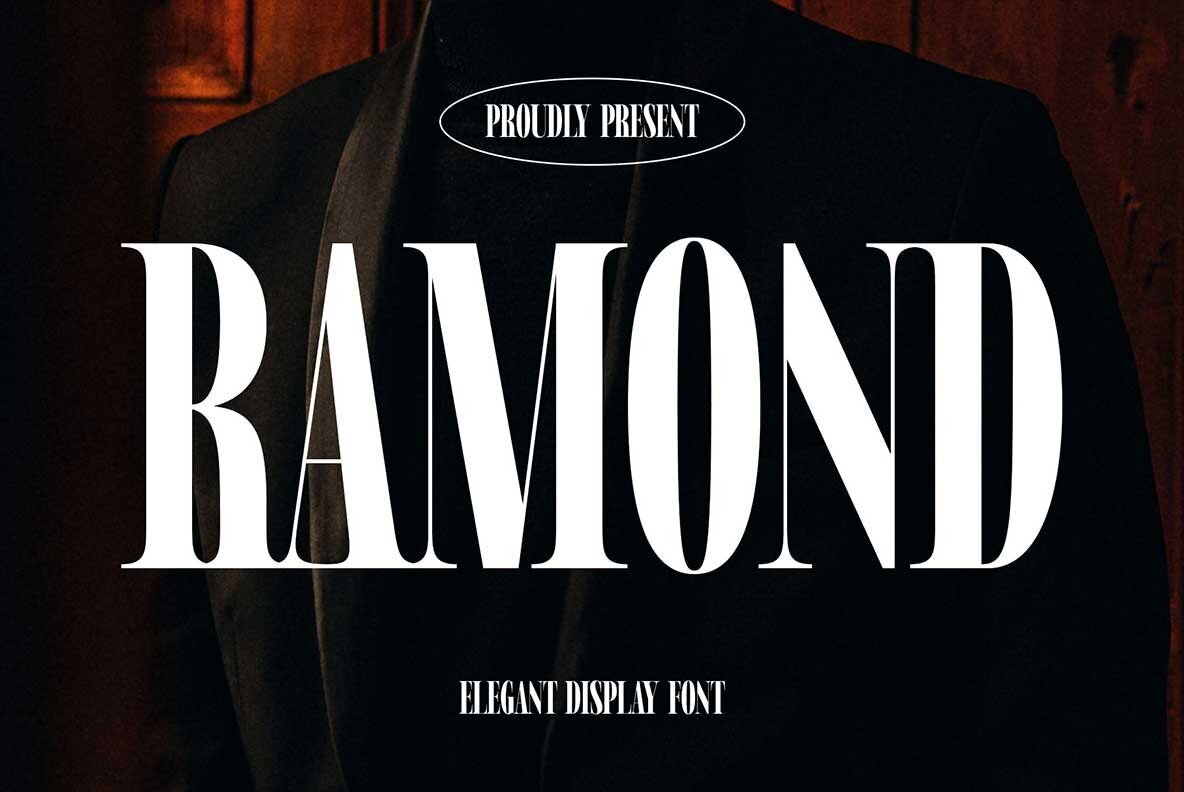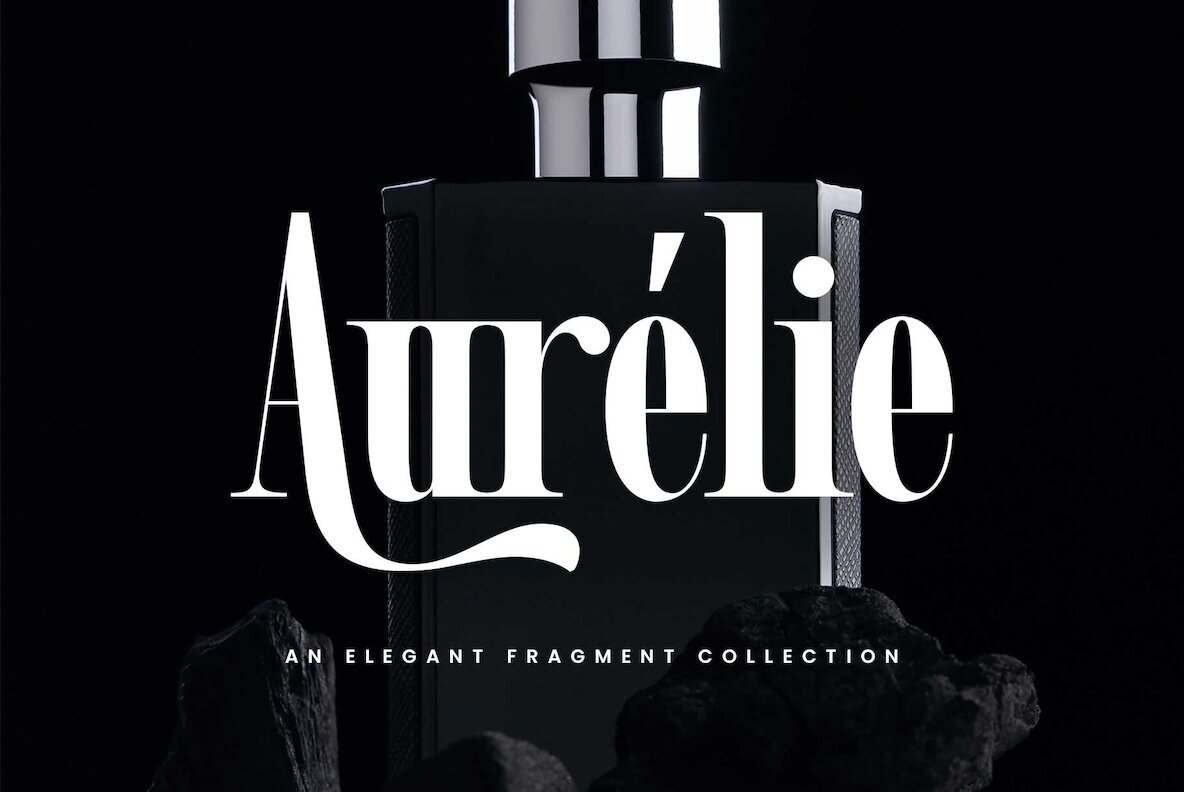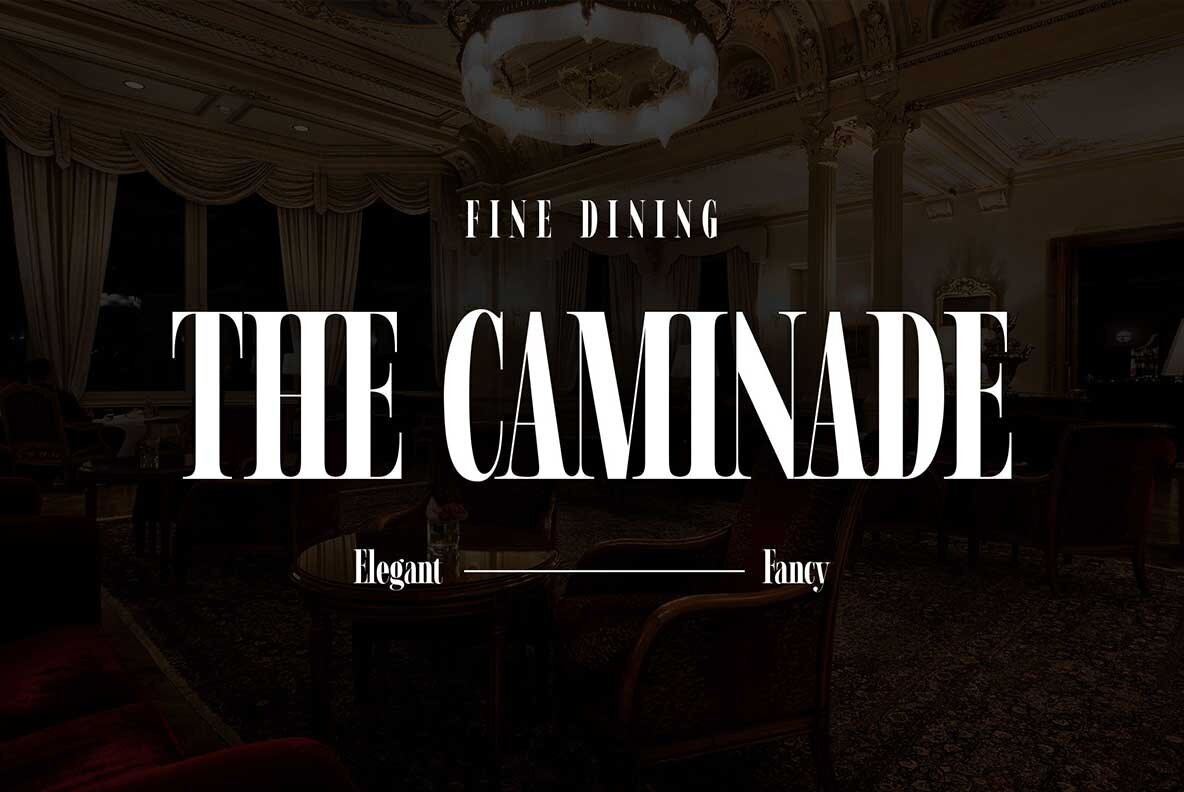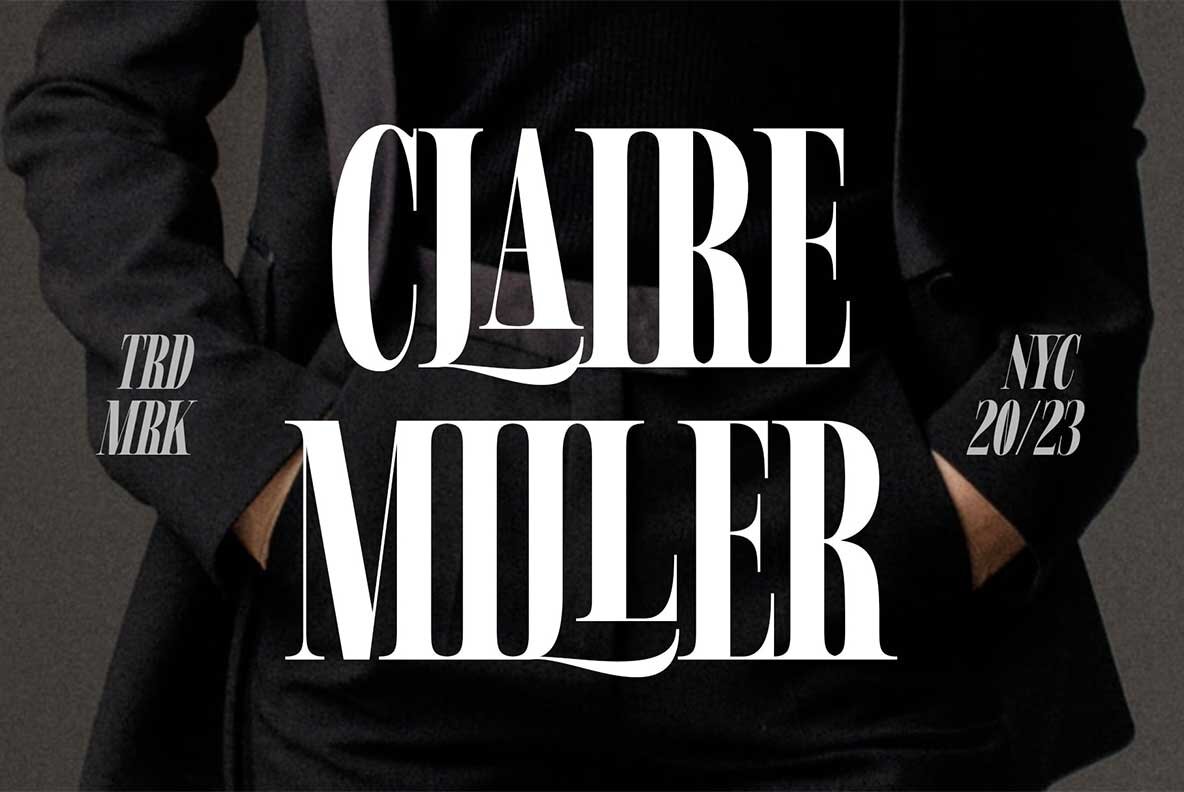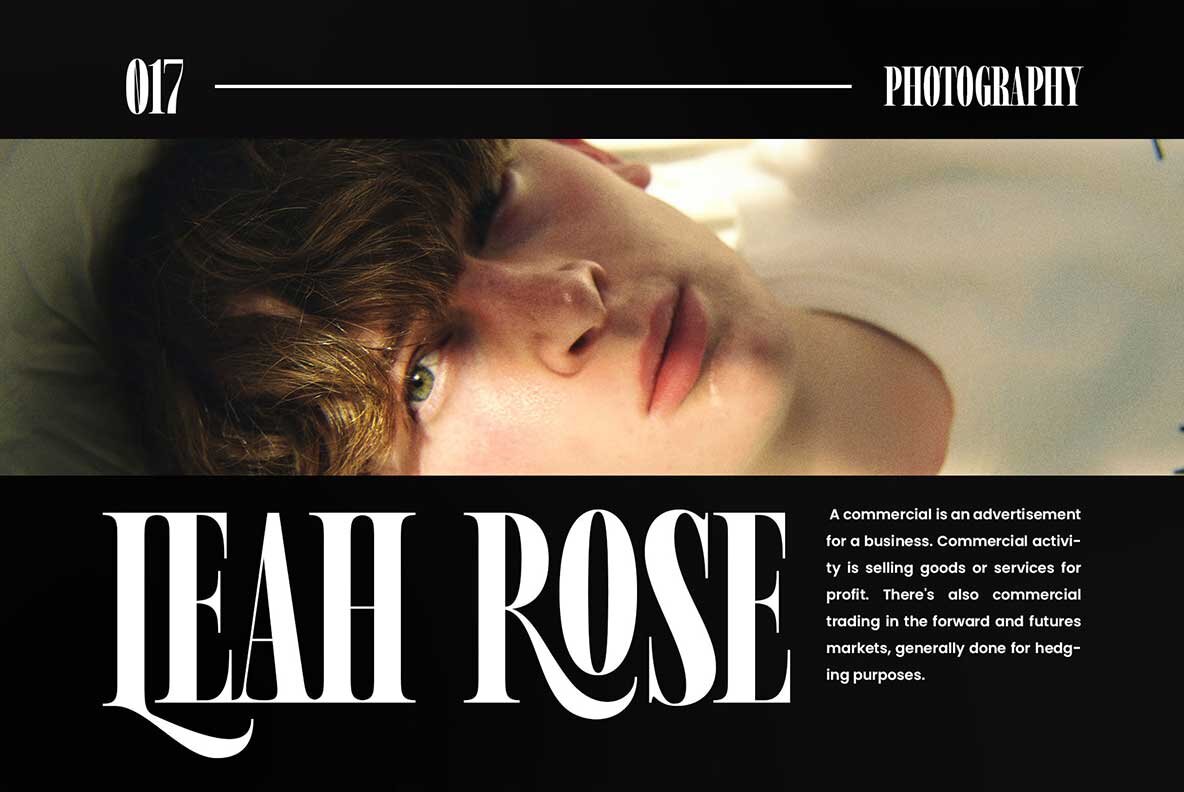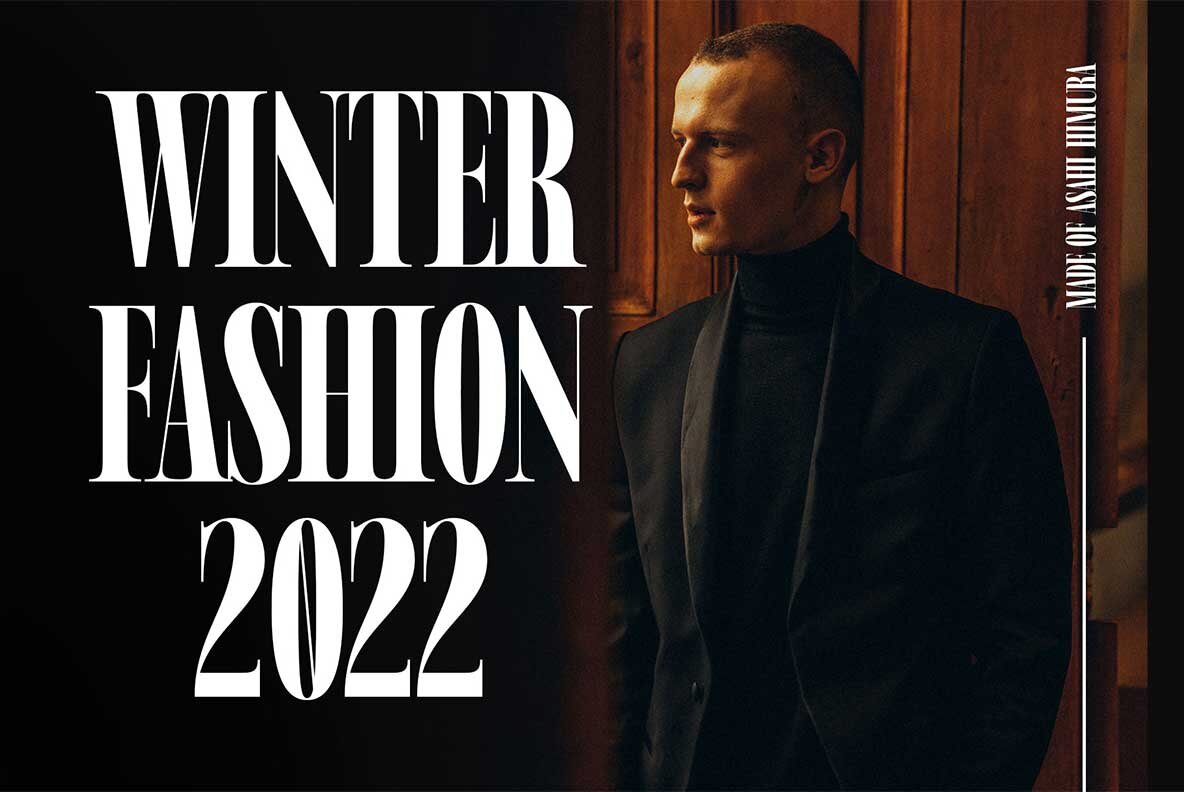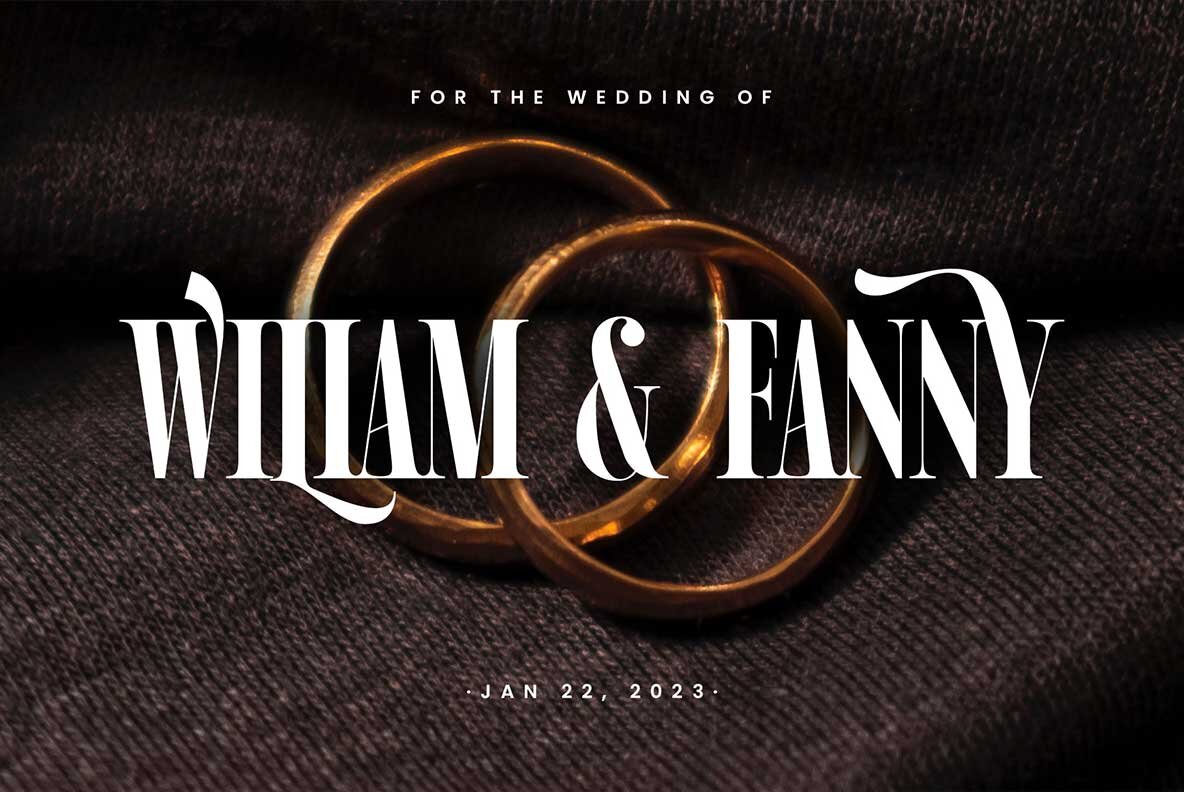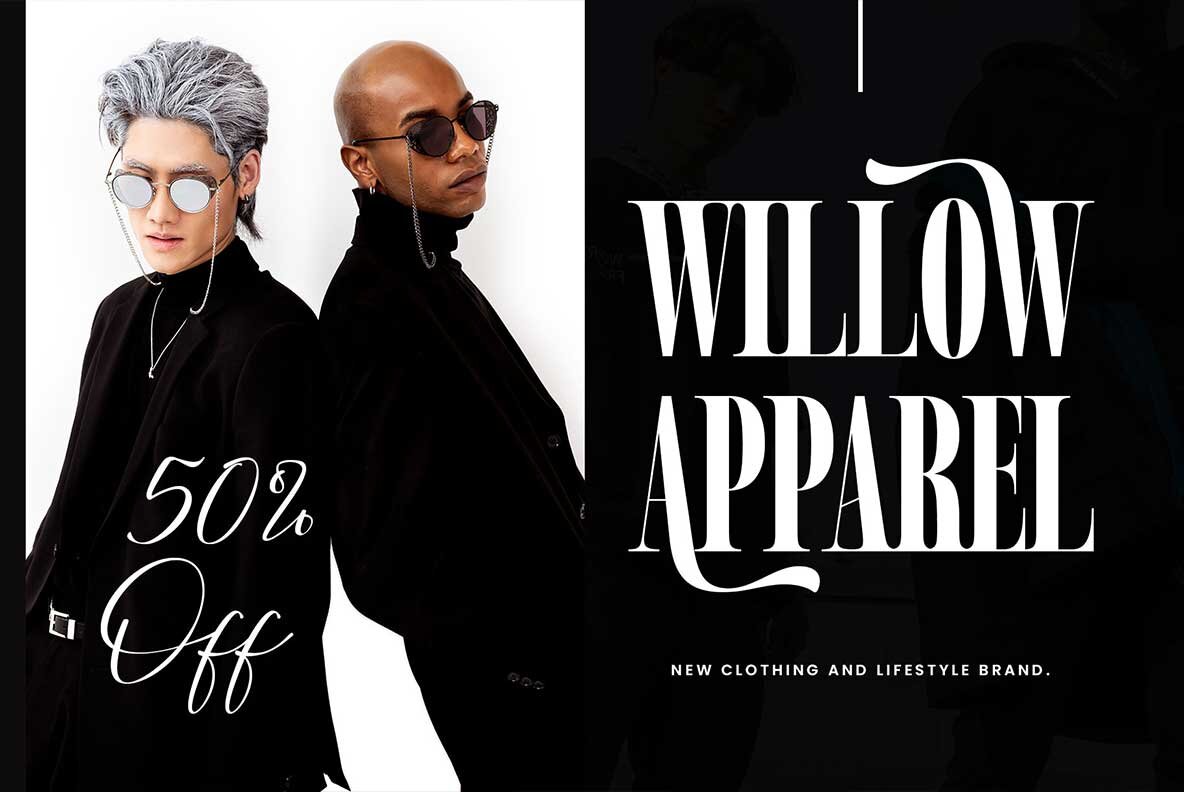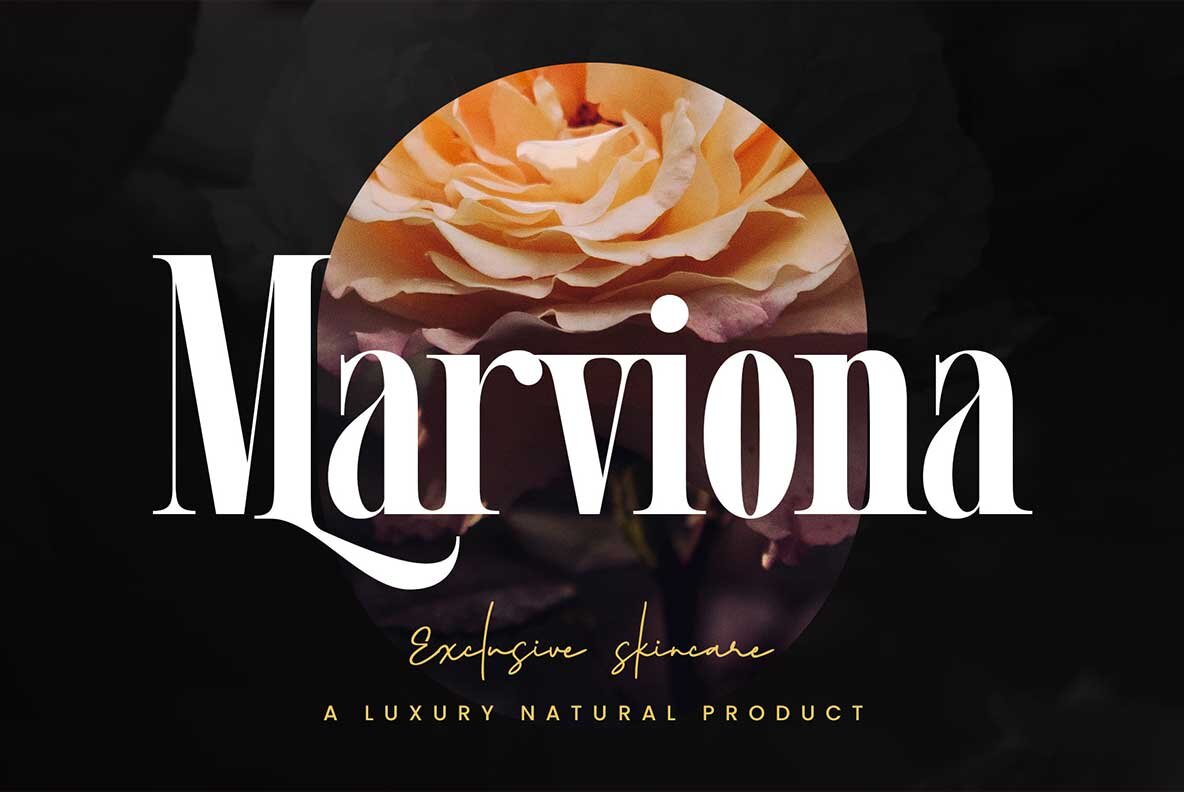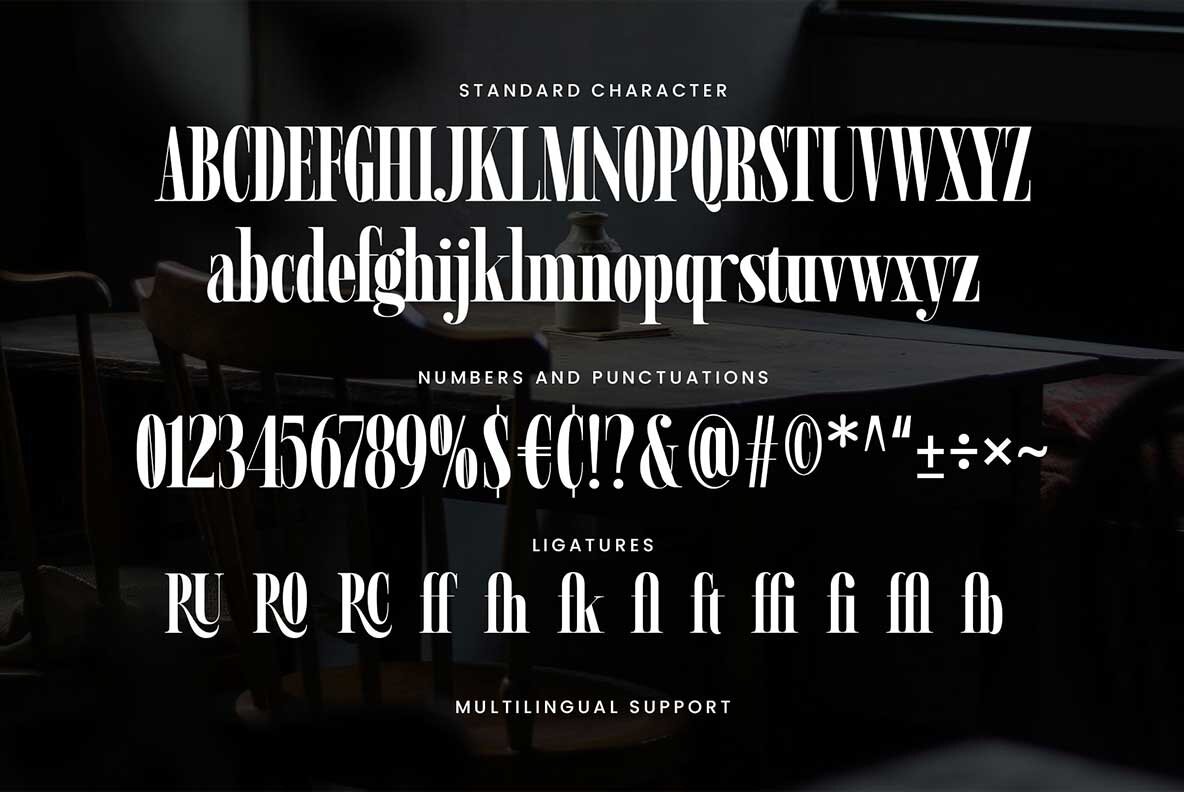
Ramond Font
Ramond Regular
Ramond draws inspiration from the striking display fonts of the 1990s, capturing the refined style seen in magazines and newspapers of the era. This bold and elegant sans serif font delivers clarity and impact, making it ideally suited for creative projects where visual presence is essential. The condensed forms and assertive letter shapes create a sophisticated mood, fitting seamlessly into editorial layouts, headlines, and displays. Ramond is equally effective in logotypes, branding, movie titles, posters, and concise quotes—wherever a confident statement is needed.Ramond Display Sans Serif Font